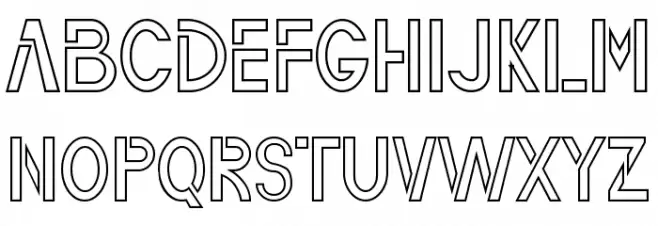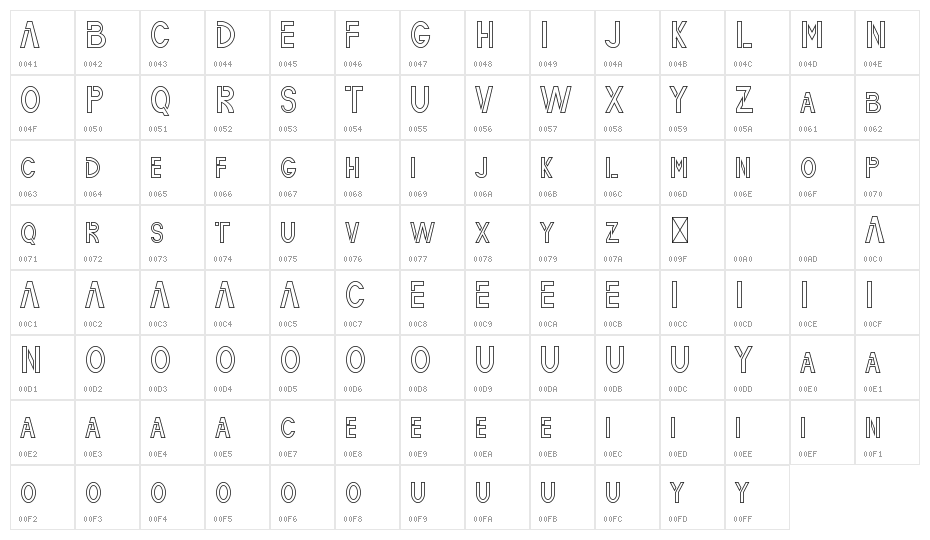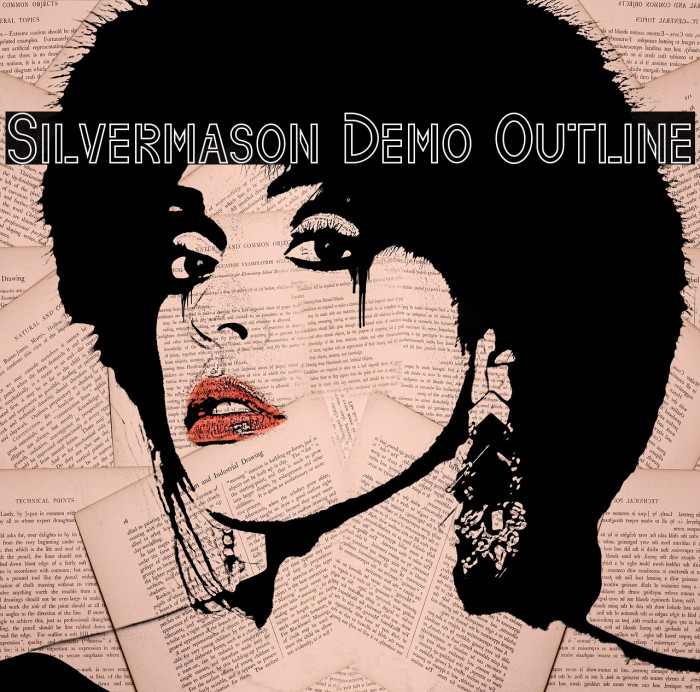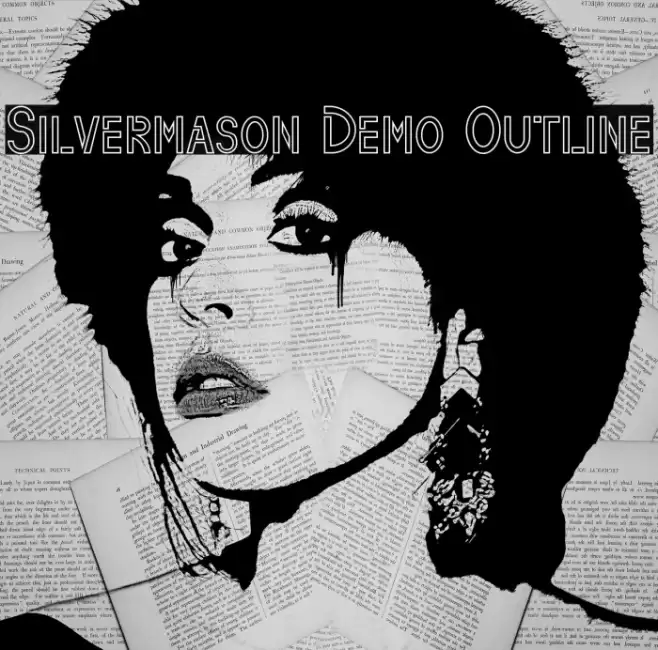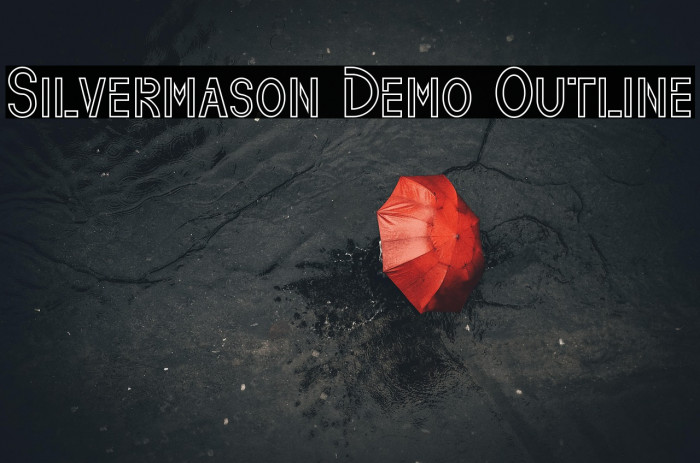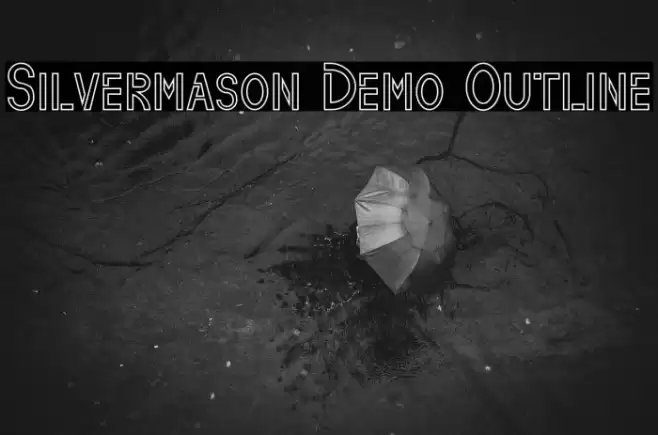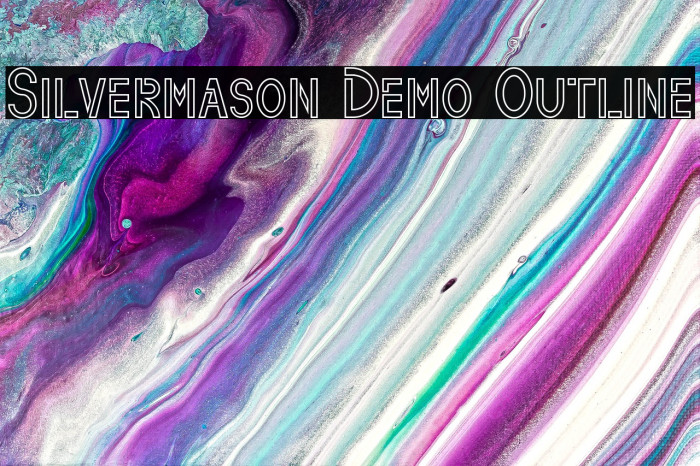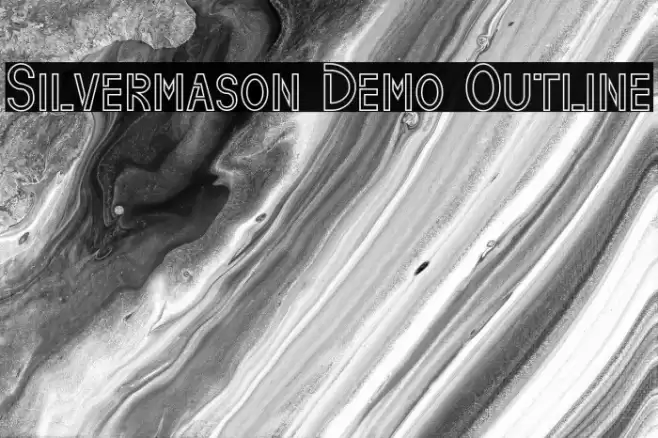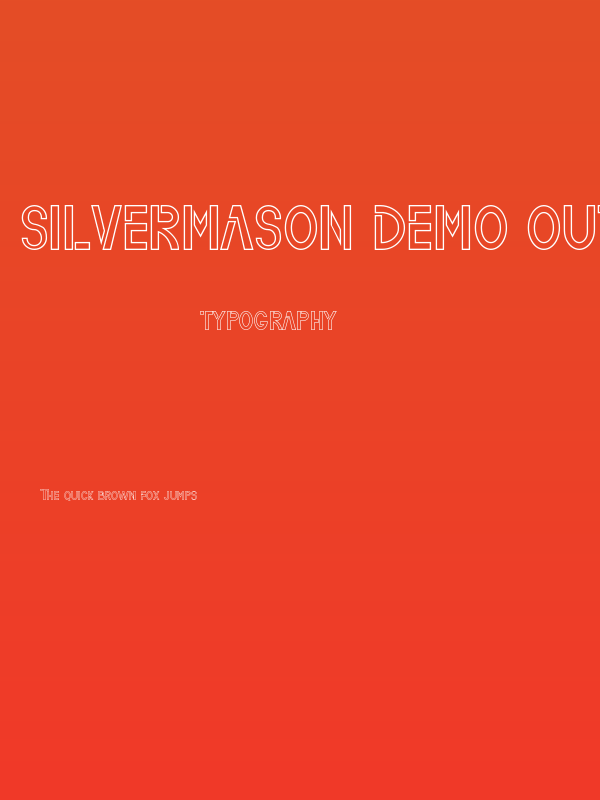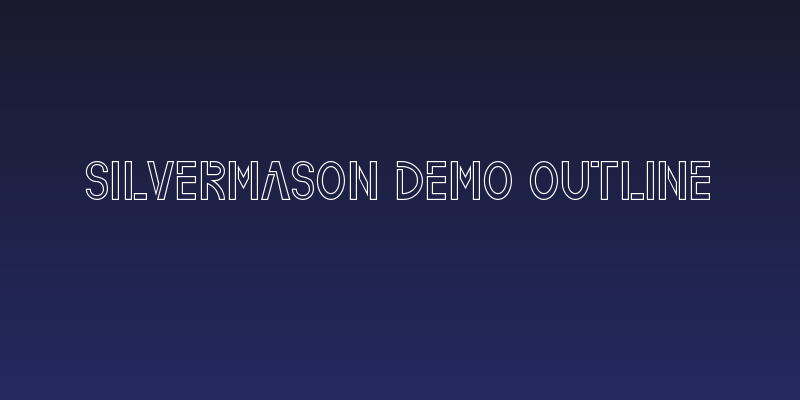
Silvermason Demo Outline Font
Silvermason Demo Outline Description
This font features a bold, geometric outline style with a modern and clean aesthetic. The uppercase letters are designed with consistent line thickness, creating a uniform and structured appearance. The characters are well-proportioned, with sharp angles and straight lines that give a sense of precision and clarity. The outline effect adds a unique dimension, making the letters stand out without overwhelming the viewer. This font is particularly effective for creating eye-catching headlines or titles where a contemporary and stylish look is desired. Its simplicity and boldness make it versatile for various design applications.